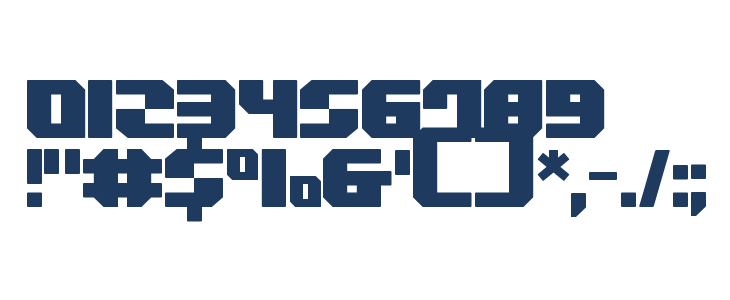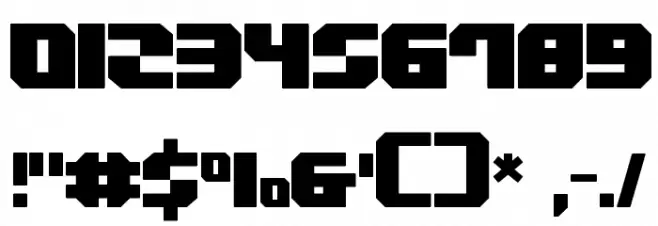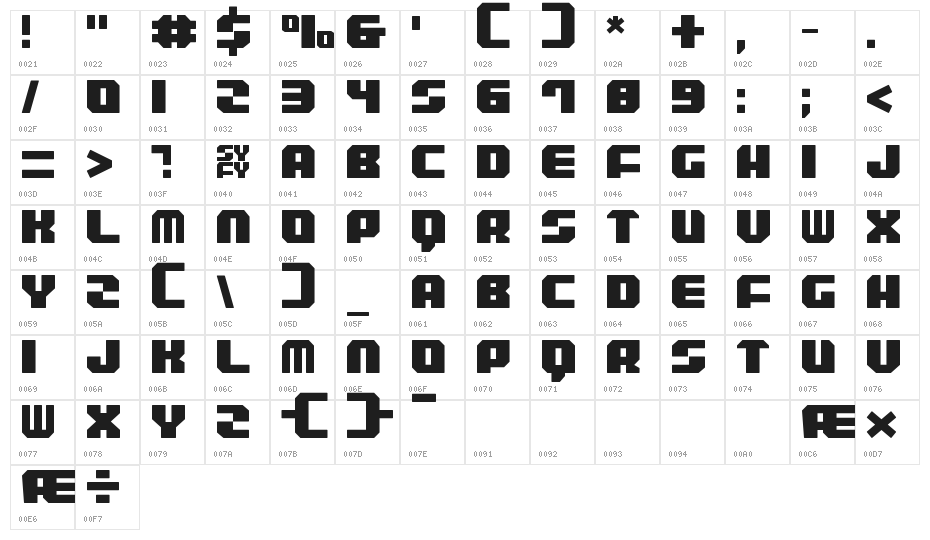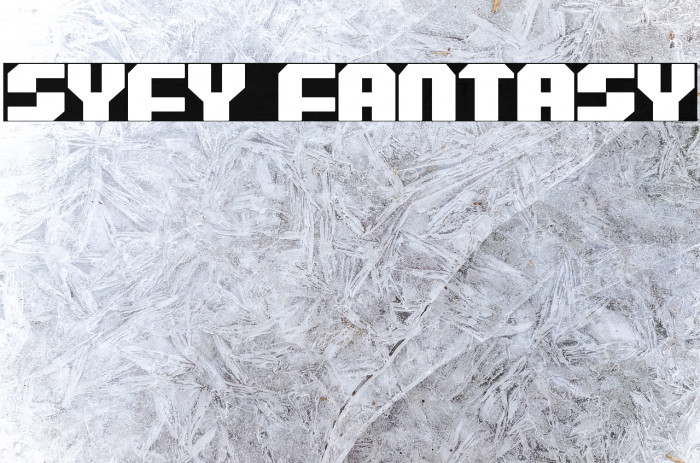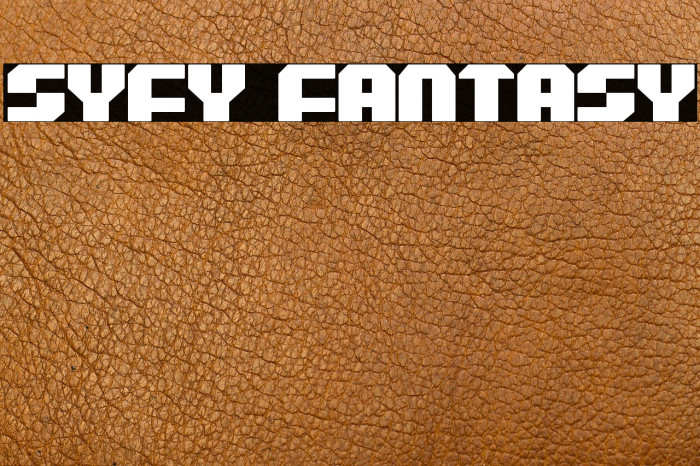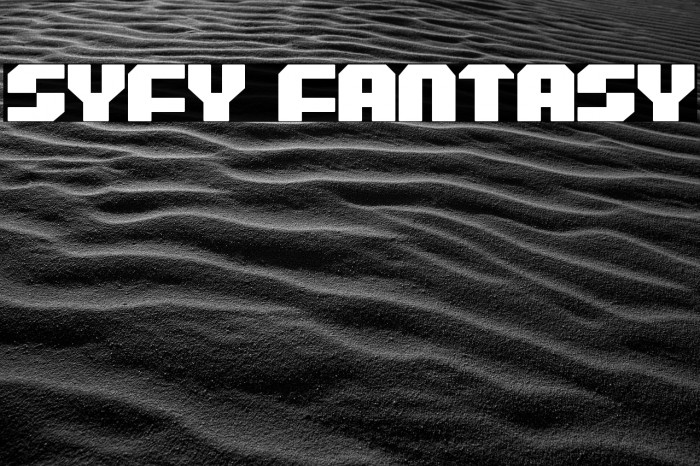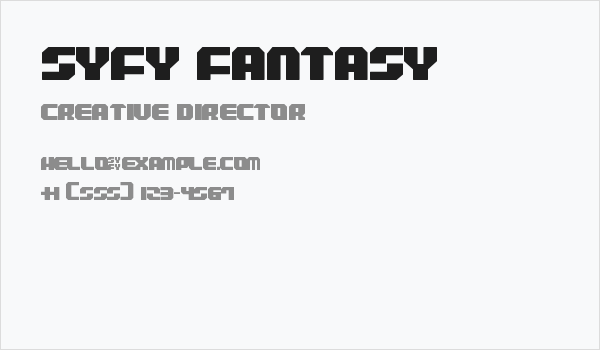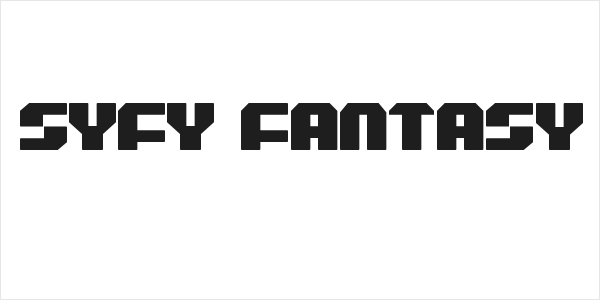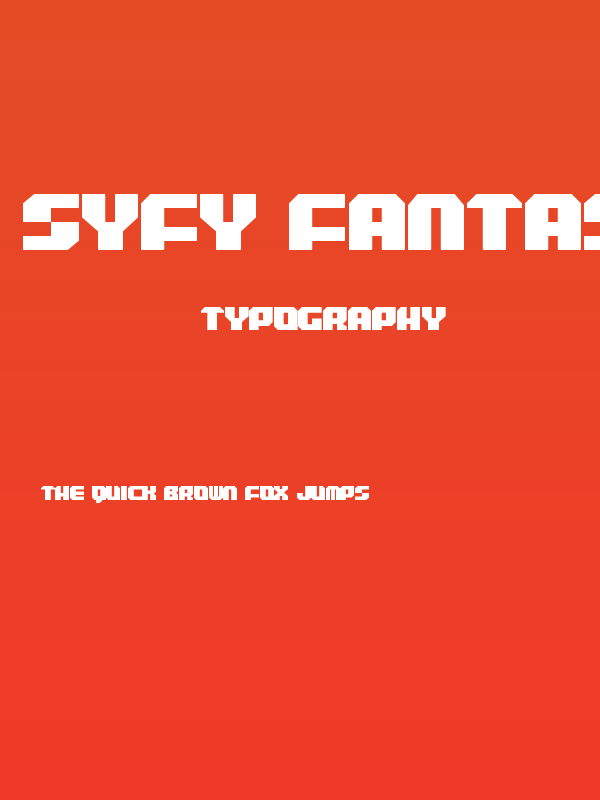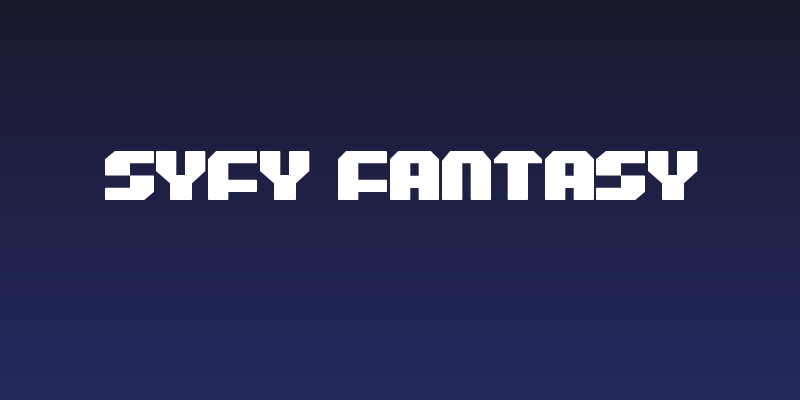
SYFY Fantasy Font
SYFY Fantasy Description
This font features a bold, geometric design with a futuristic and sci-fi aesthetic. The characters are constructed with sharp angles and straight lines, giving them a blocky appearance. The uppercase and lowercase letters maintain a consistent style, with the lowercase slightly smaller but equally bold. Numbers and special characters follow the same design principles, ensuring uniformity across all glyphs. The font's unique style makes it stand out, ideal for projects that require a modern and edgy look.
| Proposed Projects | Ideal for sci-fi themed posters, video game titles, futuristic branding, and technology-related projects. |